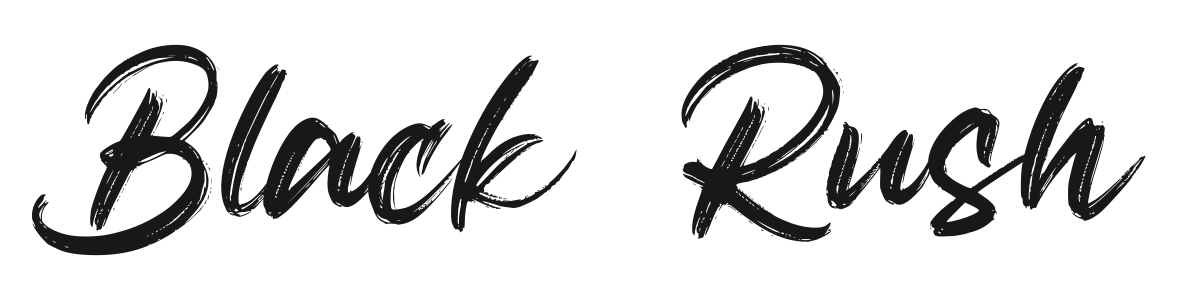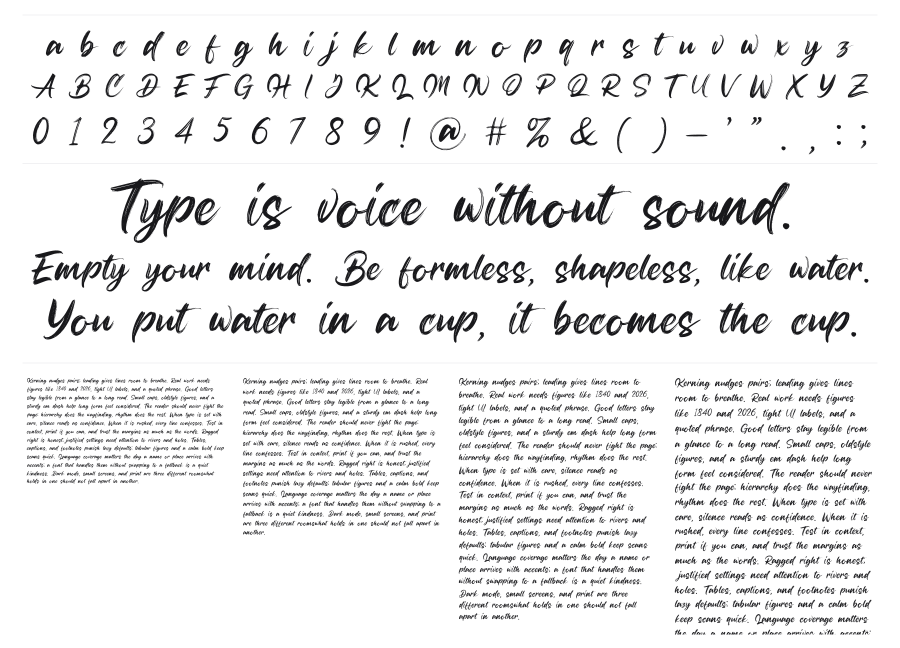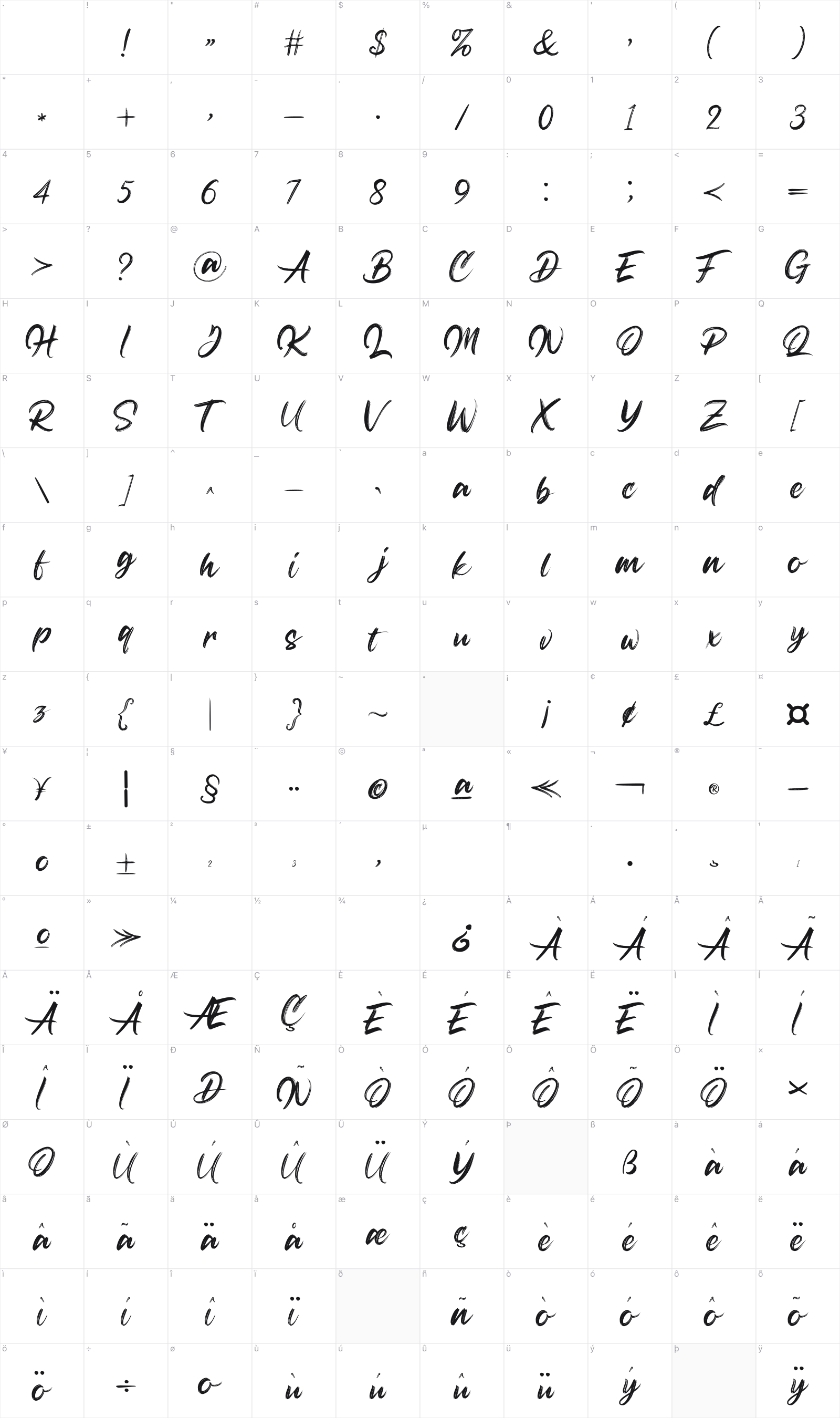
Black Rush
Black Rush is a bold brush script with raw, bristle-textured strokes and dramatic contrast between thick downstrokes and thin hairlines. The loose, energetic connections between characters give it an authentic hand-painted quality that feels alive on the page. Strong at large sizes in branding, packaging, and poster work where personality drives the design.